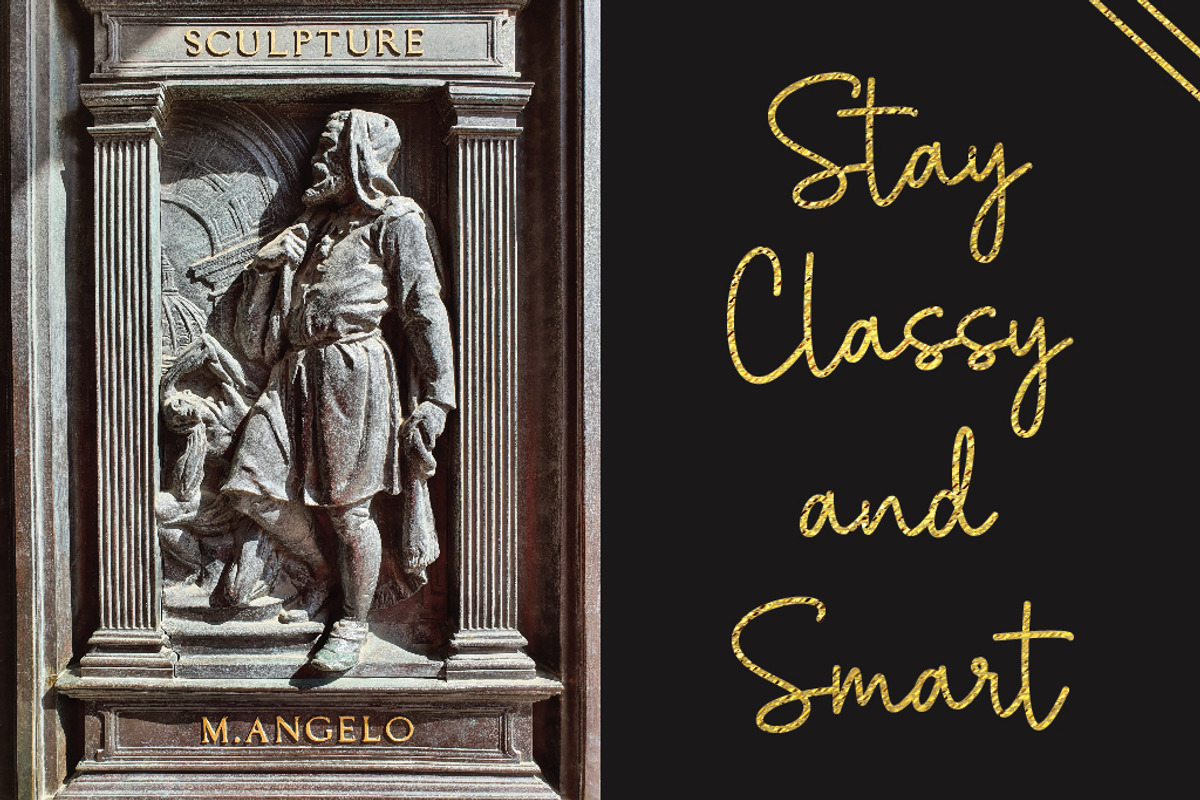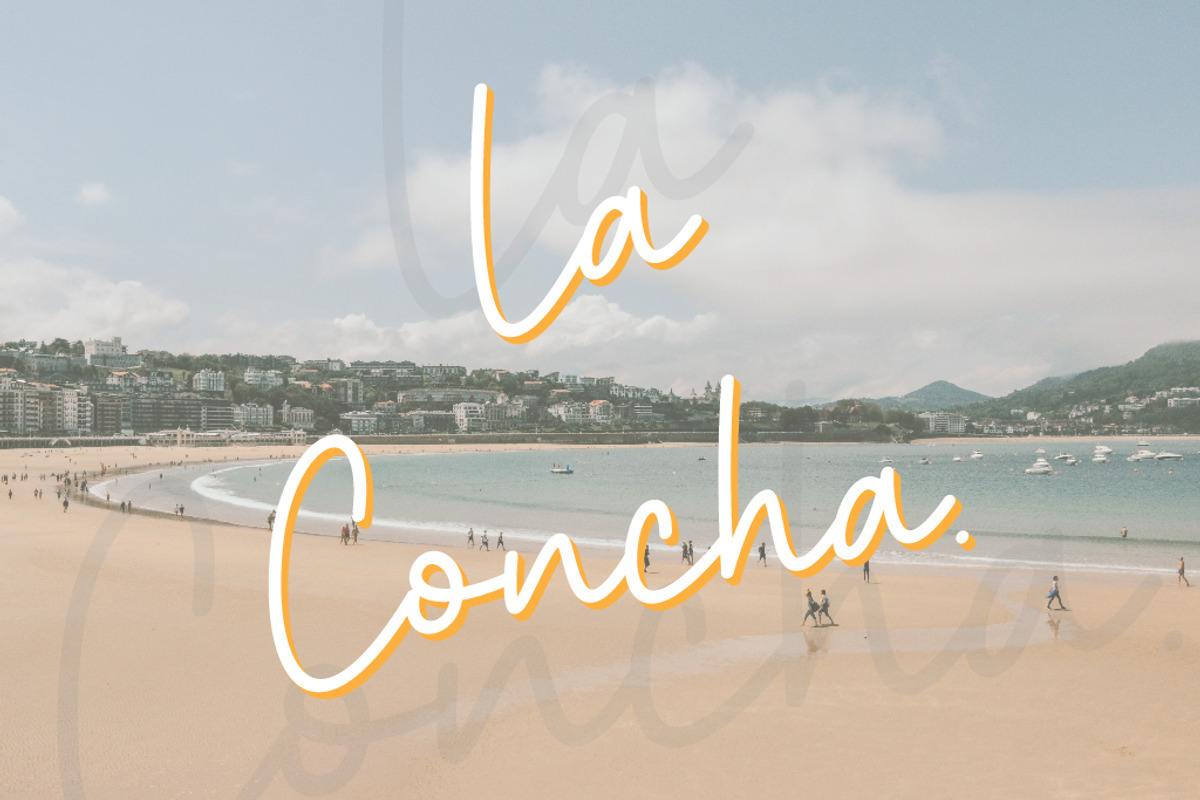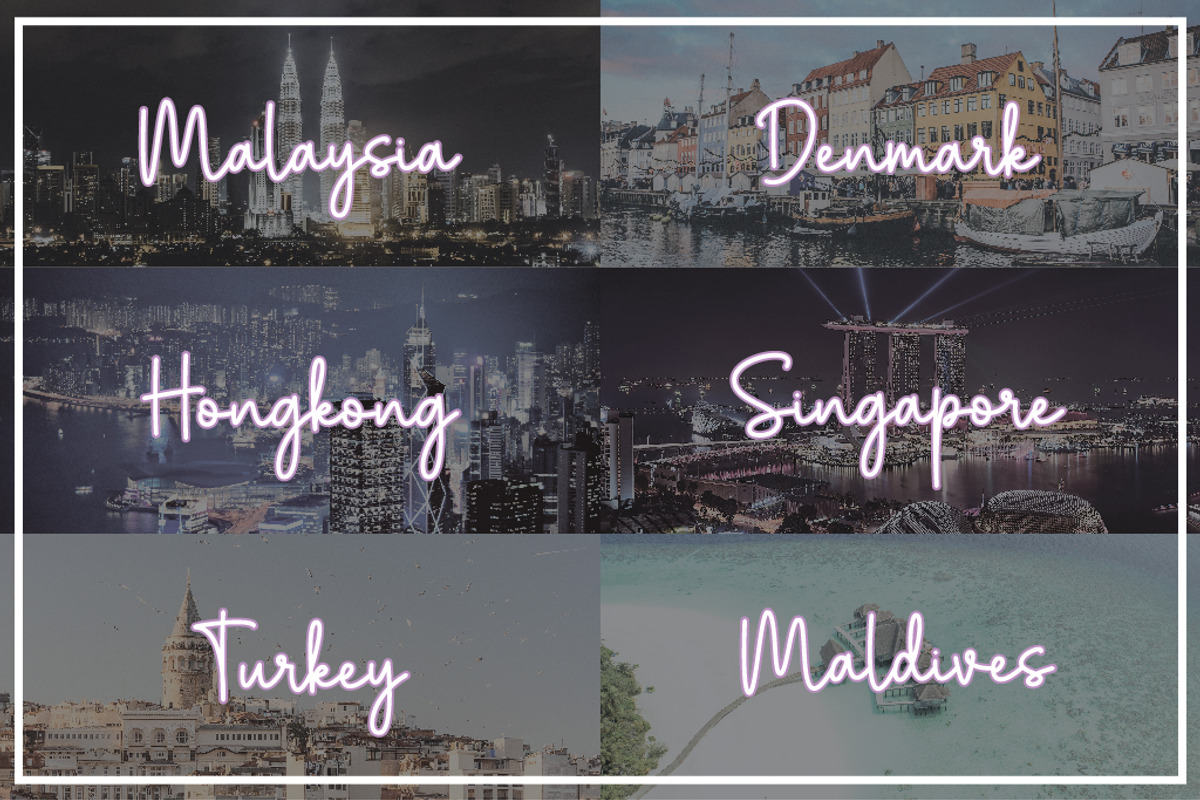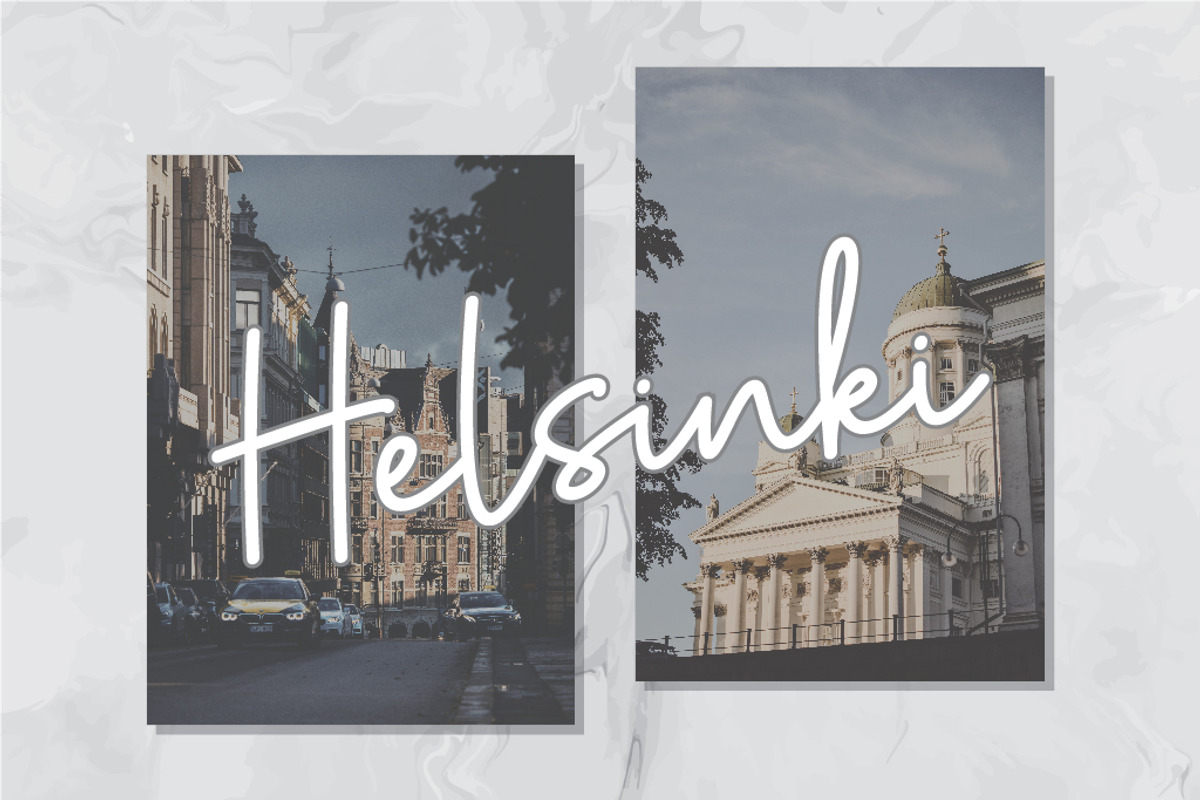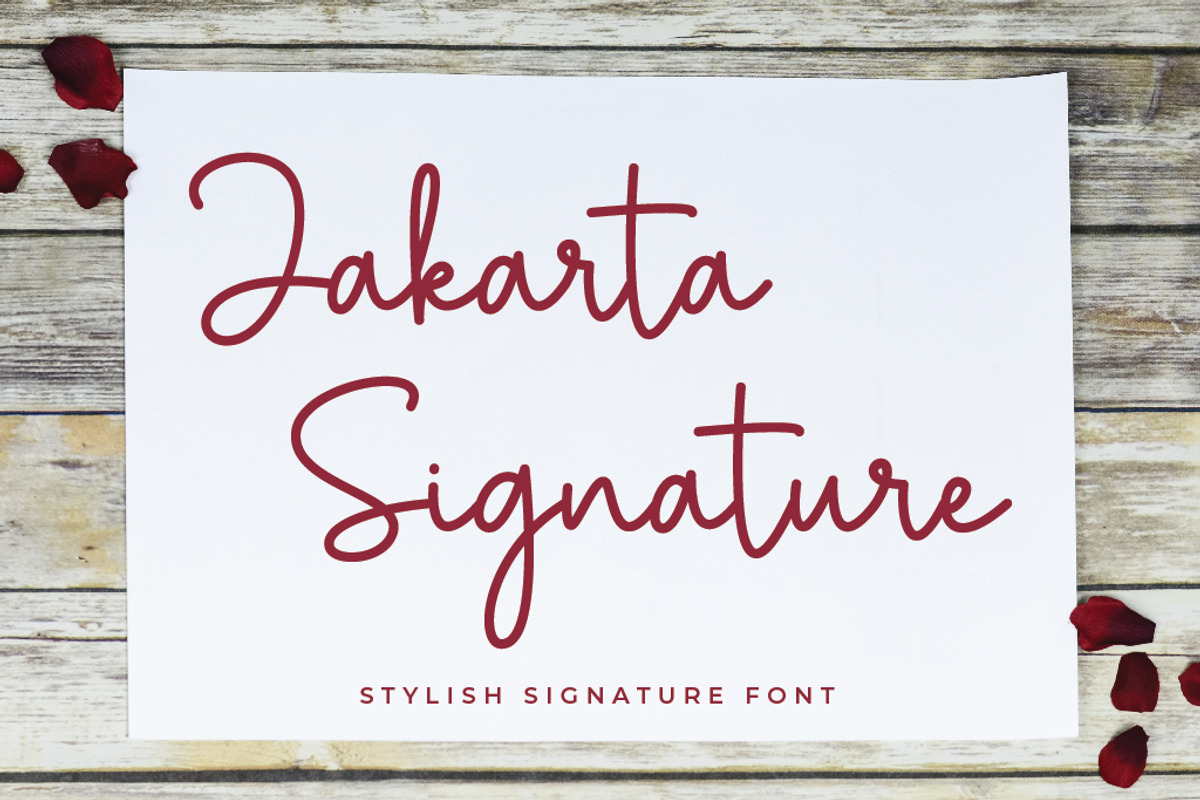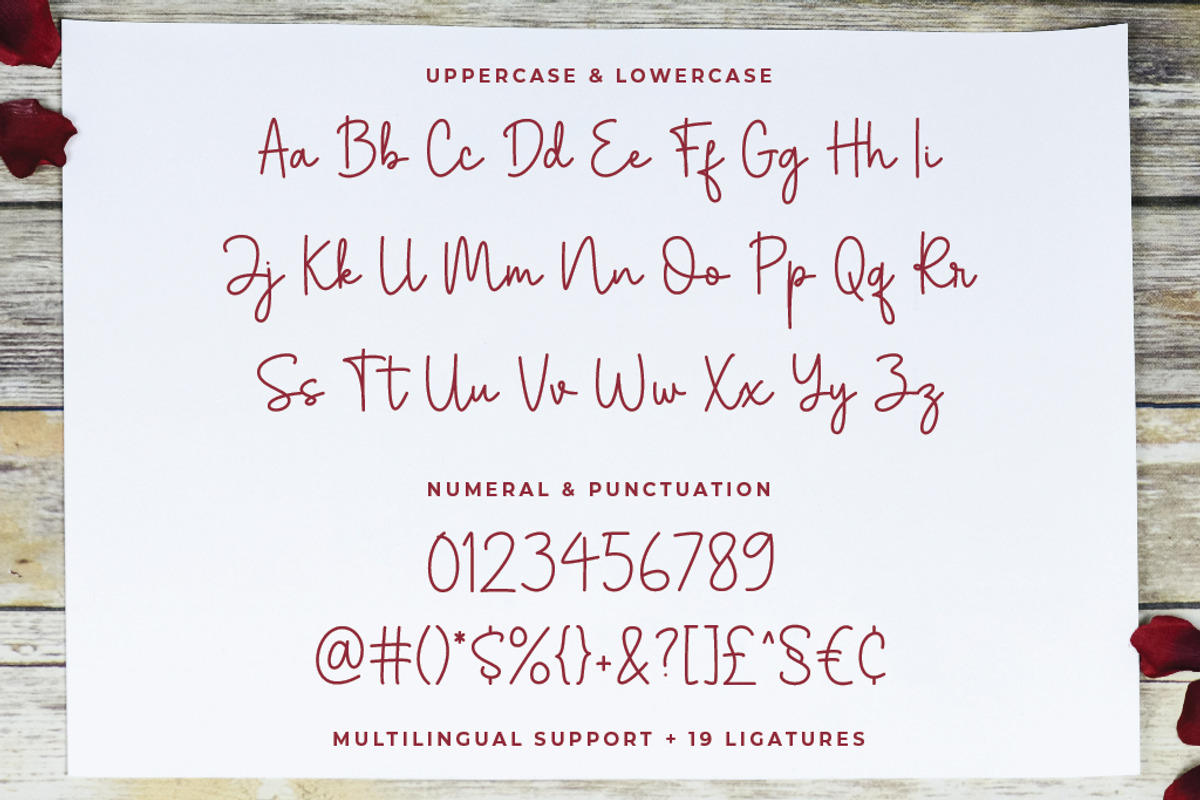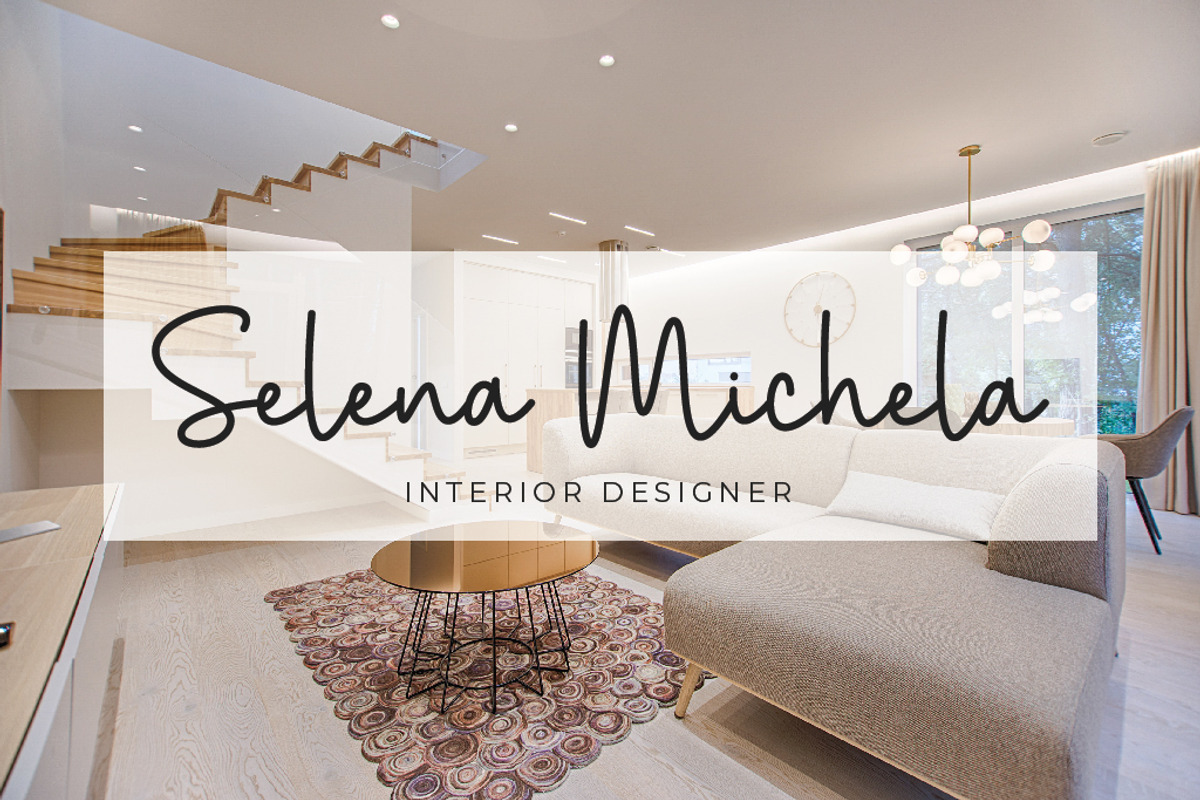
Jakarta Signature Font
Jakarta Signature is a simple handwritten font with a creative twist. Jakarta Signature matches any design by adding an elegant and minimalist feel. Jakarta Signature is compatible with many tools, such as Illustrator and Photoshop and supports multilingual features. Elegant strokes make it perfect for product design, be it a branding, inspiring wall poster or something else to communicate your brand.